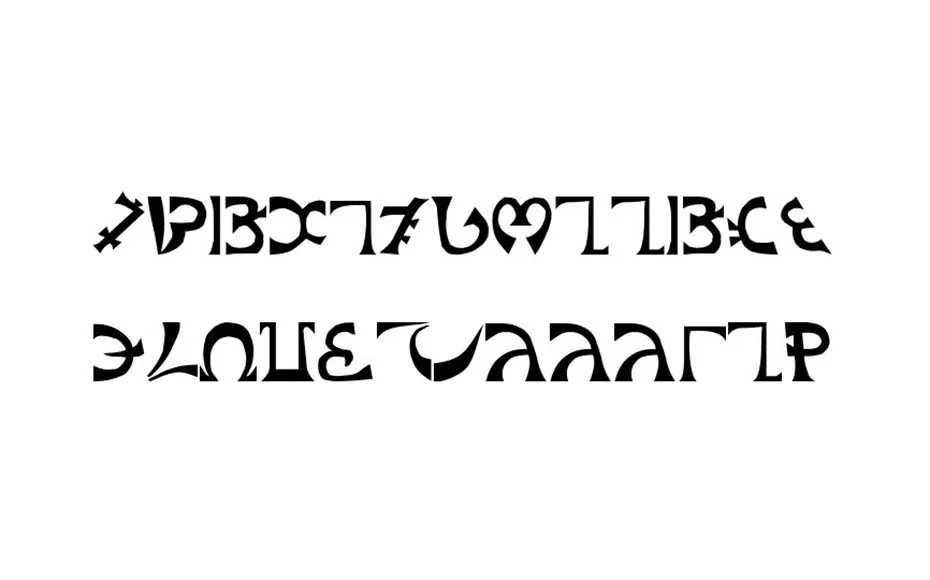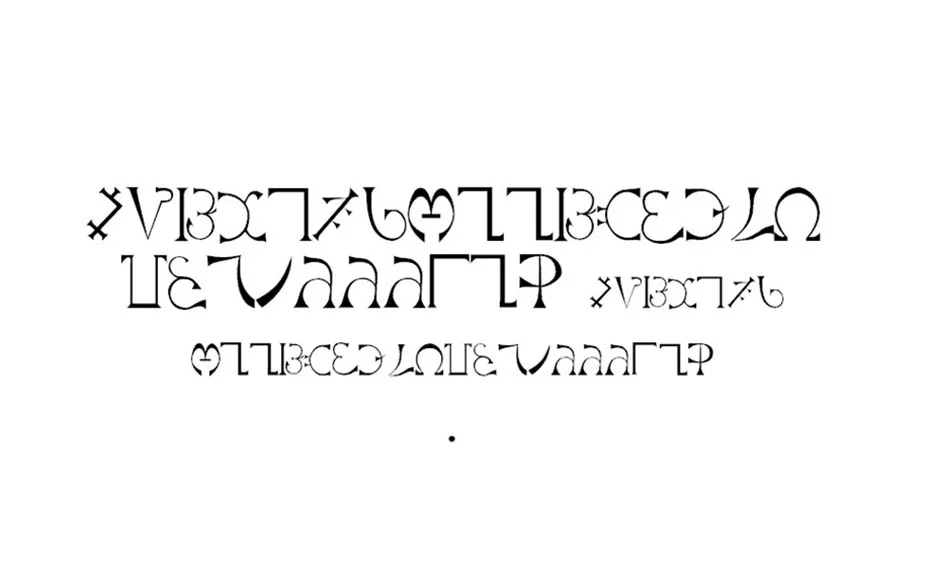
Enochian Font Free Download
Enochian Font is a dingbat’s esoteric font created by a german based foundry Glumbosch. It has been created with thick strokes that add solidity all over the typeface.
According to the designer remarks, this font is an occult or angelic language recorded in the private journals of John Dee and his colleague Edward Kelley in late 16th-century England.
So, it’s really an amazing font that can be useable for secret projects. And the best part of it, you can easily use it for display projects like banners or posters. Because it has a bold texture which really useful for bigger text.
All textures have dingbats shapes that are created with solid thick strokes. While the kerning, spaces, height are equal to the standard size. Only width feels a little bit high due to the bold texture.
You can use this awesome font in posters, banners, t-shirts printing, game graphics, product designs, and many other places. The best use of it is in company secret projects.
It can support several international languages which makes it more useable. That’s why you will see its demand is all around the world is high.